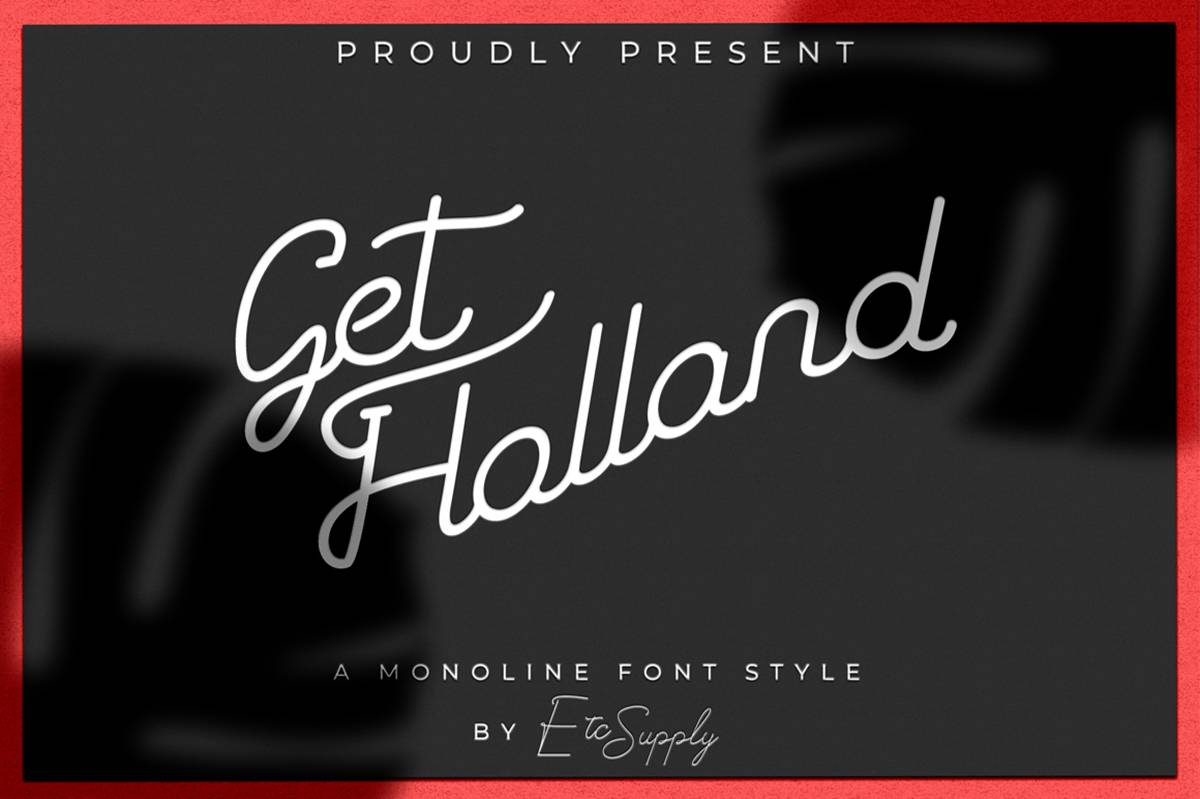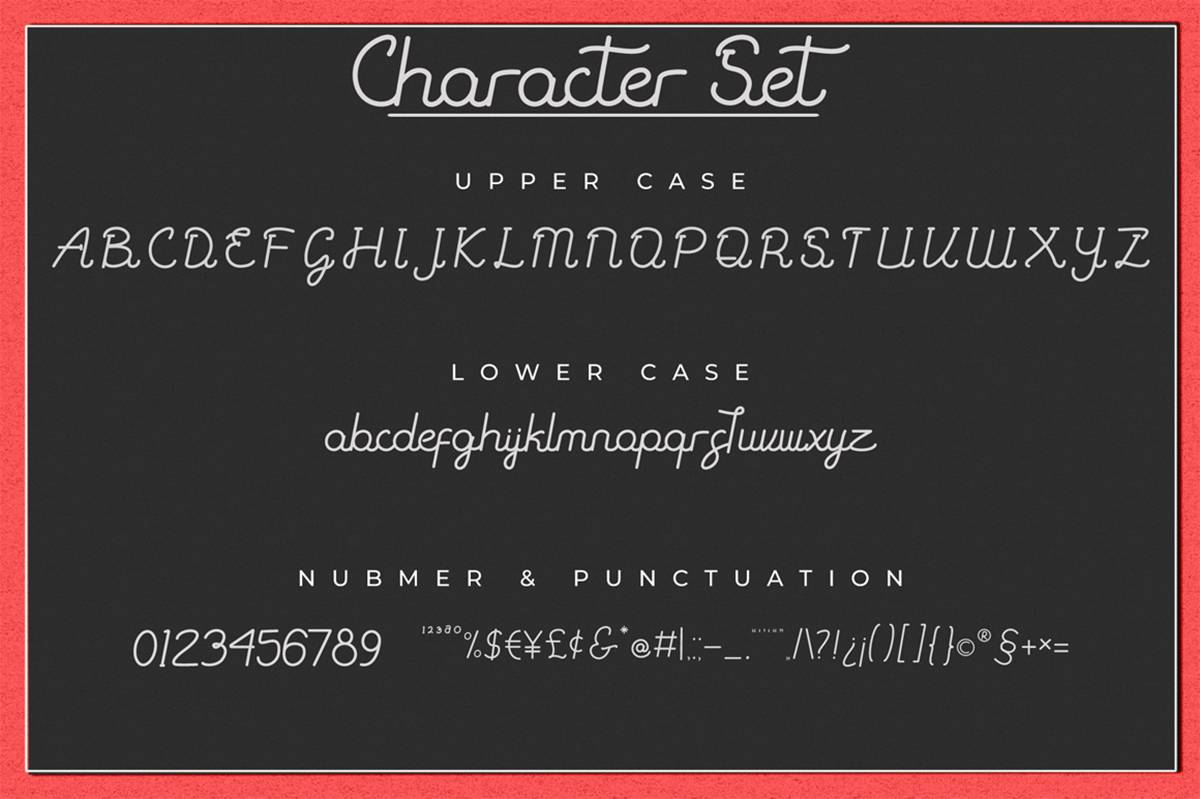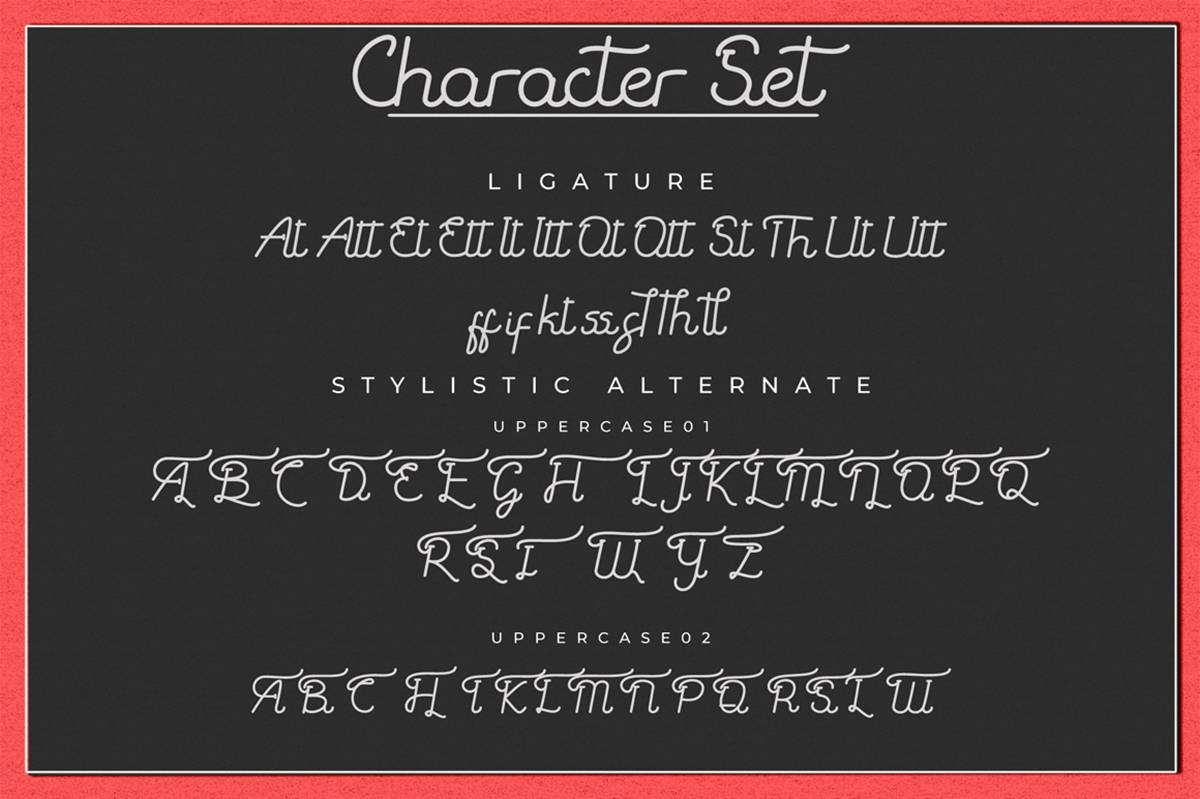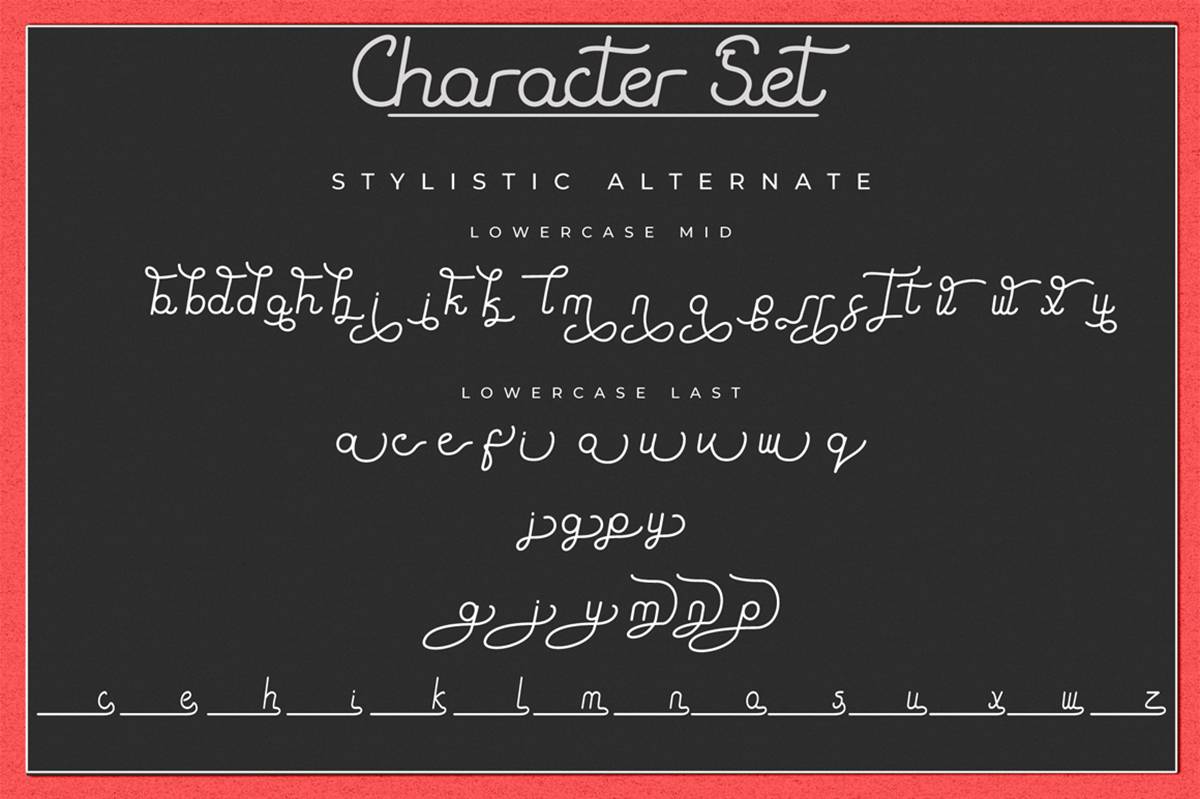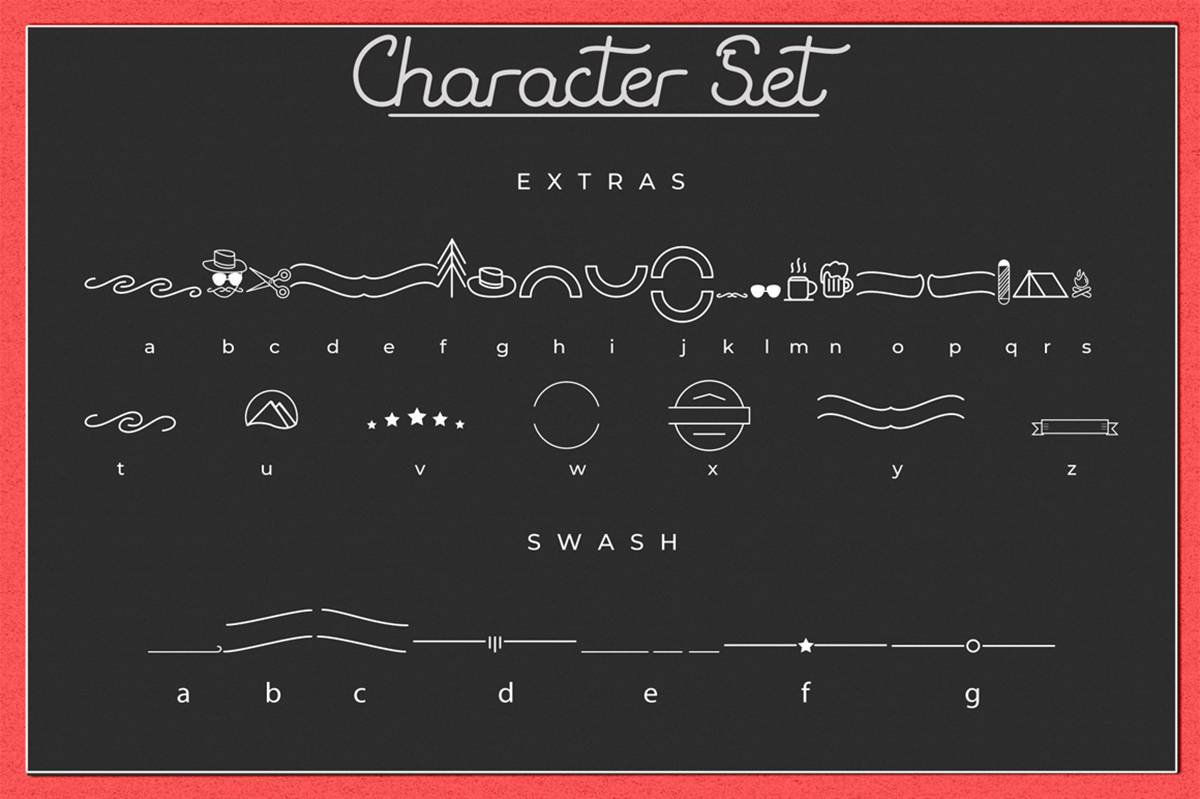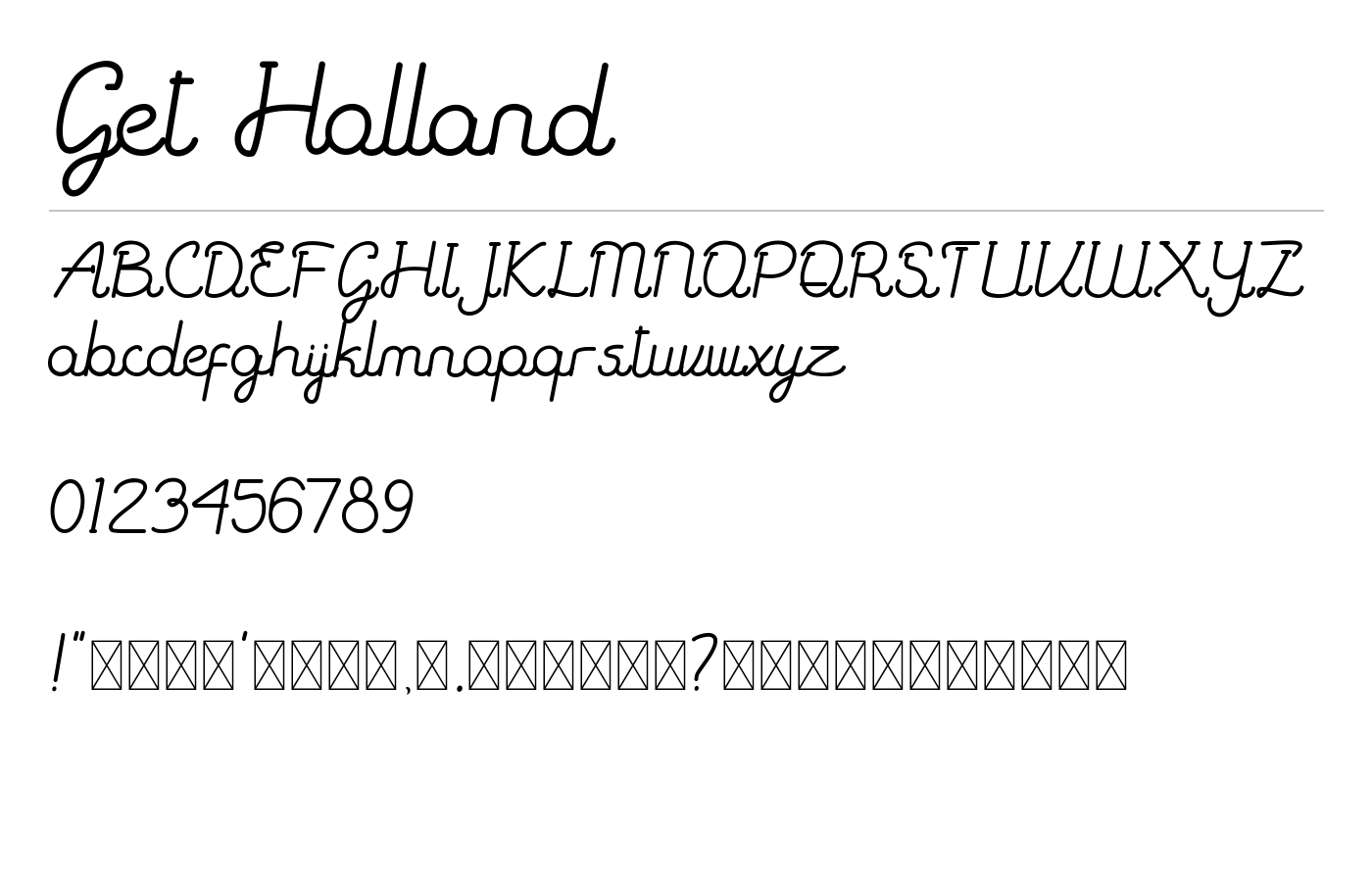
Get Holland is a slender, handwritten script font with a casual and friendly feel. Its light weight and smooth, flowing strokes give it an elegant yet approachable style, making it perfect for creative projects, informal branding, or personal invitations where a warm, human touch is desired. This font works well for logos, headlines, and short text that benefits from a personal, handwritten look.
Get Holland Font
About Get Holland Font
| Font family | Get Holland Font |
| Release date | 2020-06-06 |
| Designer | ILHAM NASHRUL HUDA |